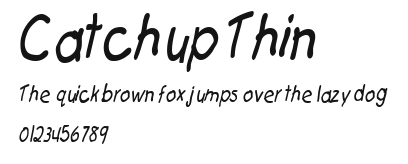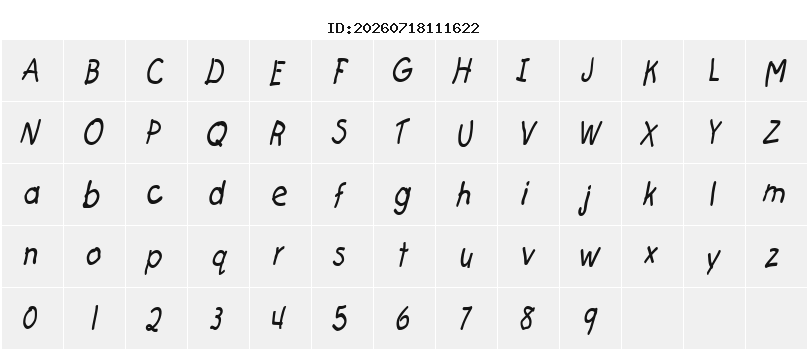
• Font Name: Catchup Thin
• Full Font Name: Catchup Thin Italic
About Catchup Thin.ttf
Catchup Thin.ttf is a modern, elegant sans-serif font designed for ultimate readability and visual harmony. Perfect for branding, headlines, web design, and print materials.